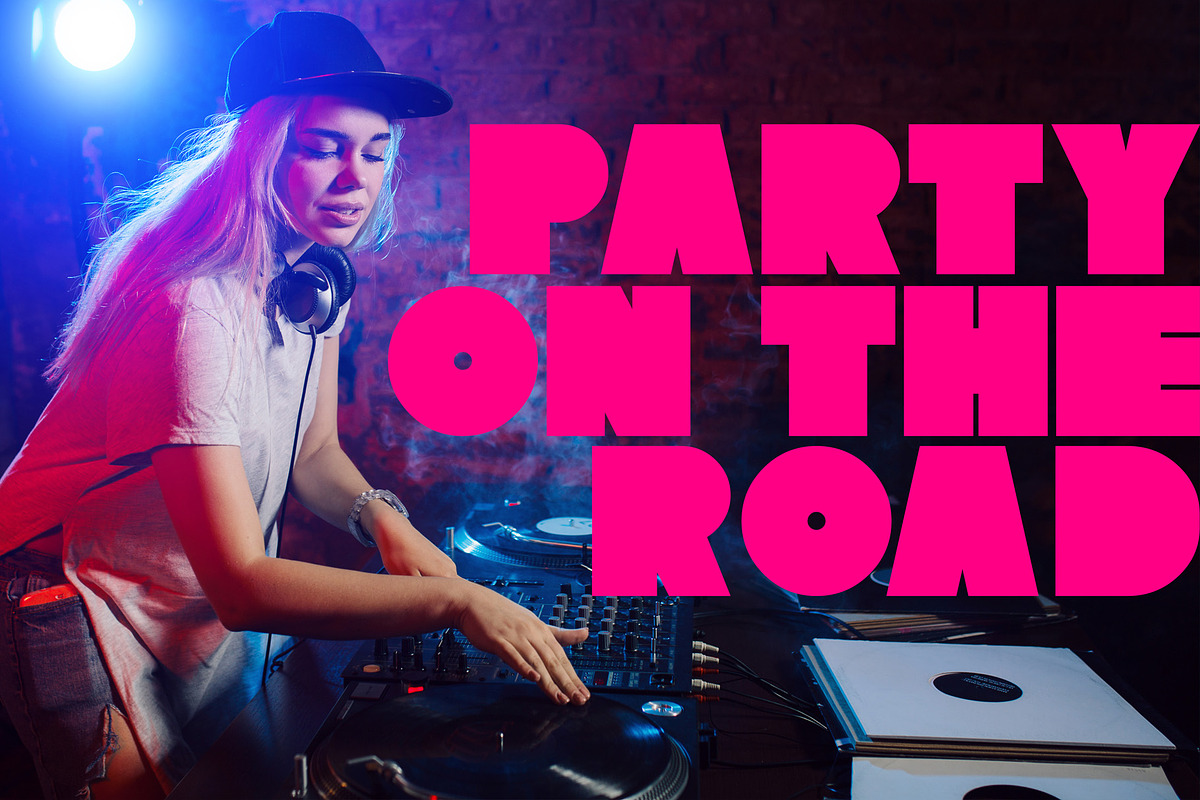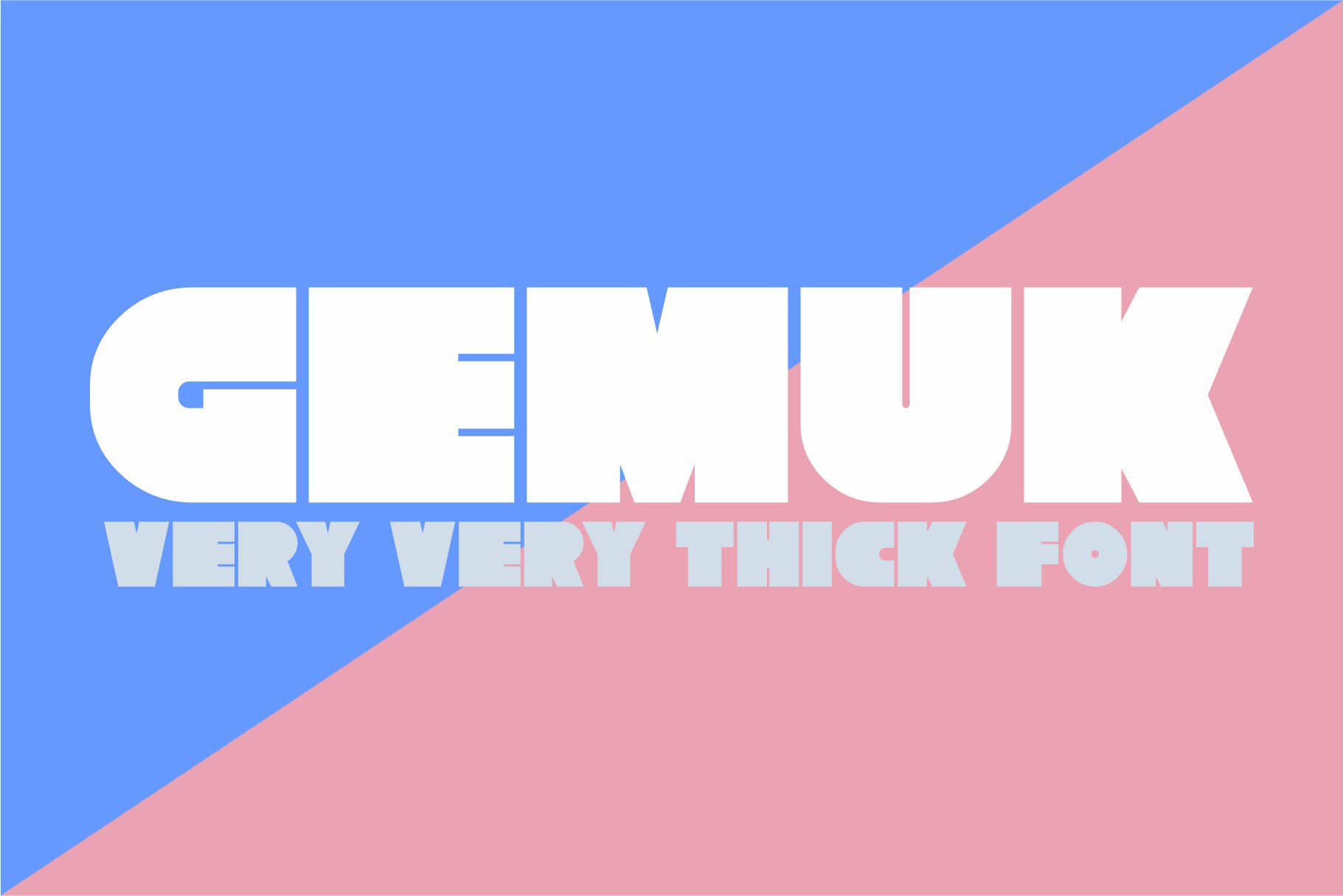
Gemuk - A very very thick font
This extra-bold display font is perfect for your heavy titles and headlines. This typeface adds a bold and iconic style to your artworks, both retro and modern. It’s perfect for any graphic design or typography project that requires a solid mood. A font with a big fat personality that will make all your artistic creations come alive with style and weight.